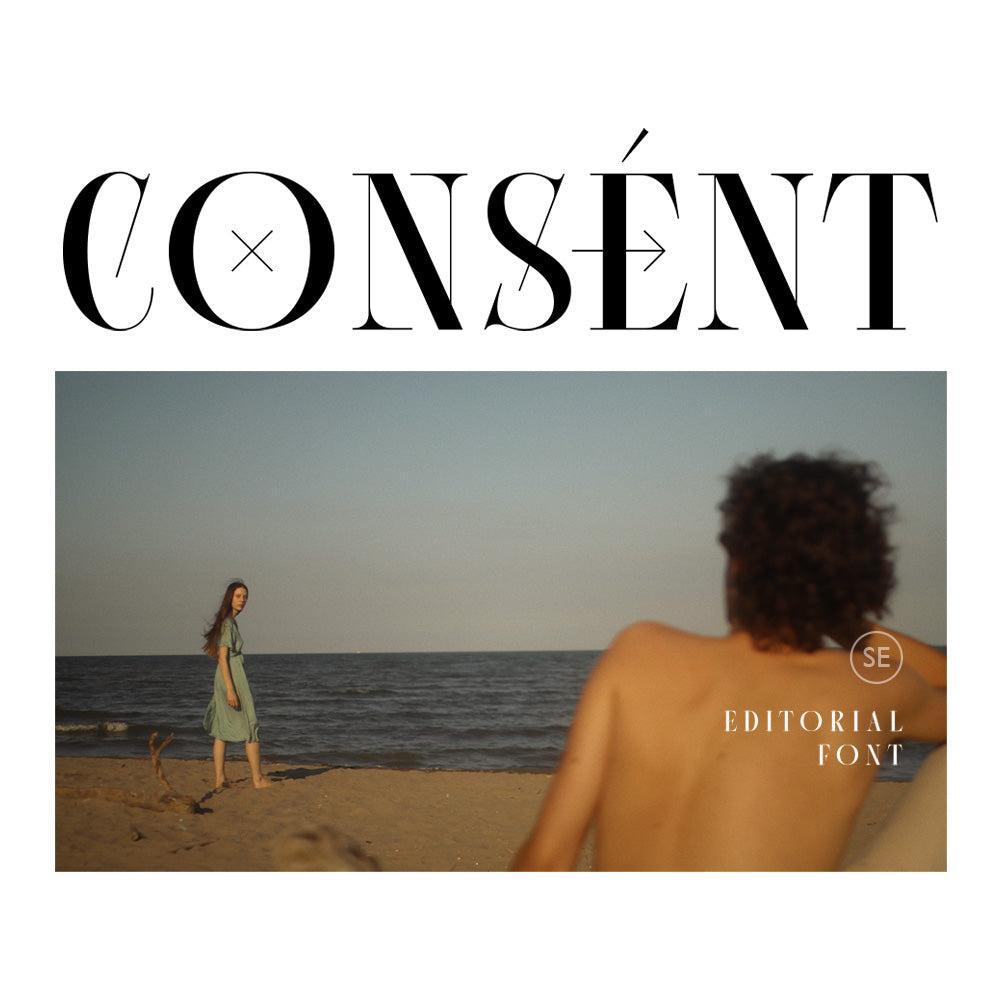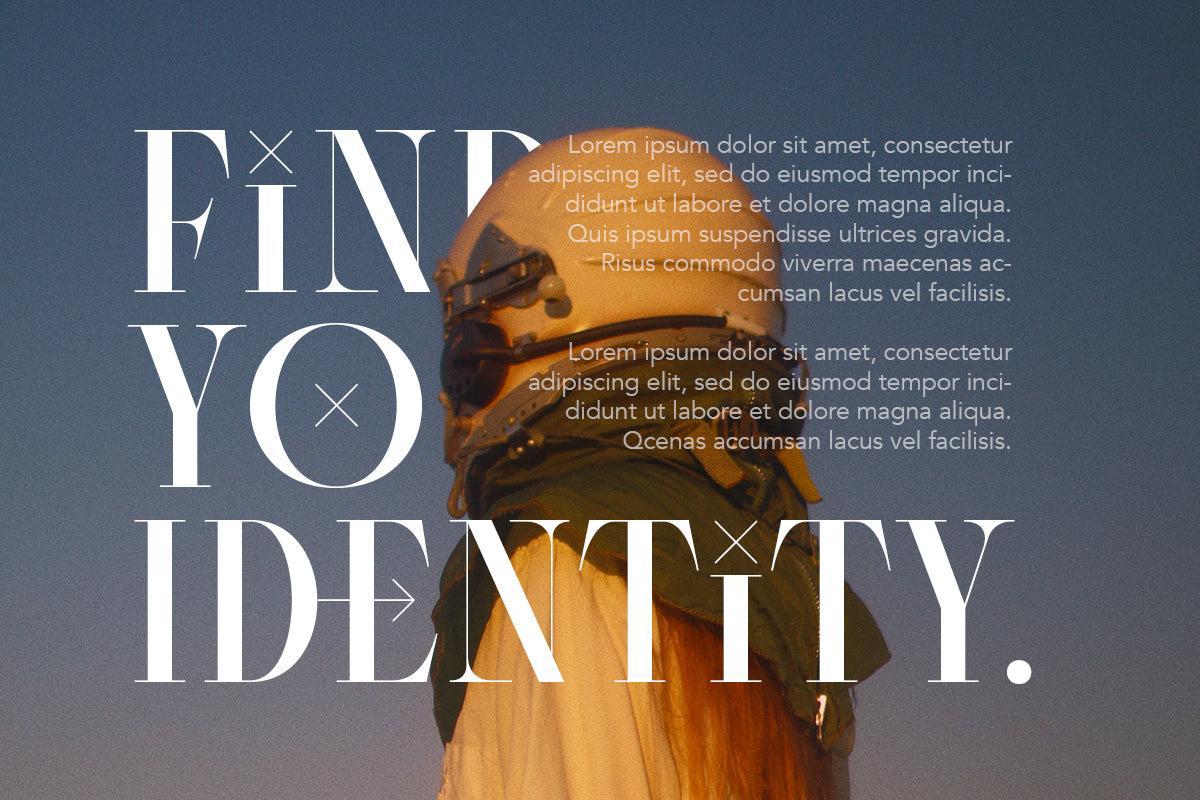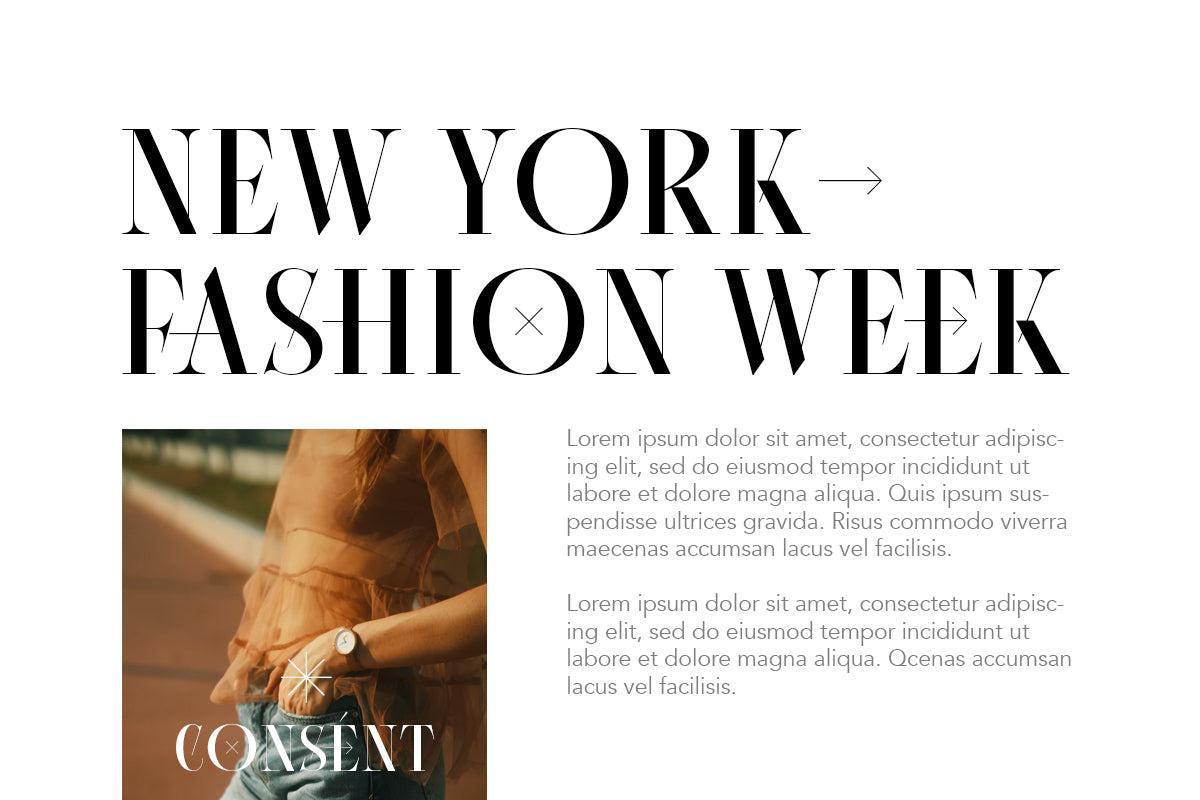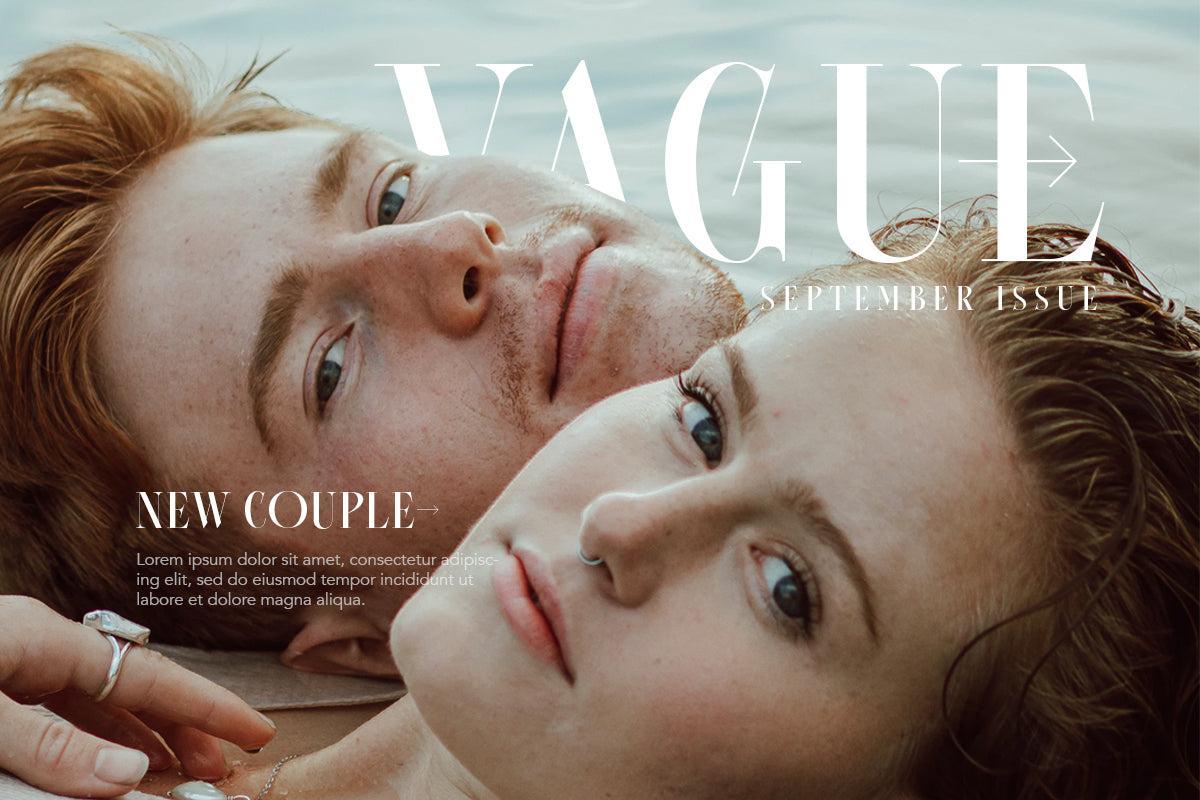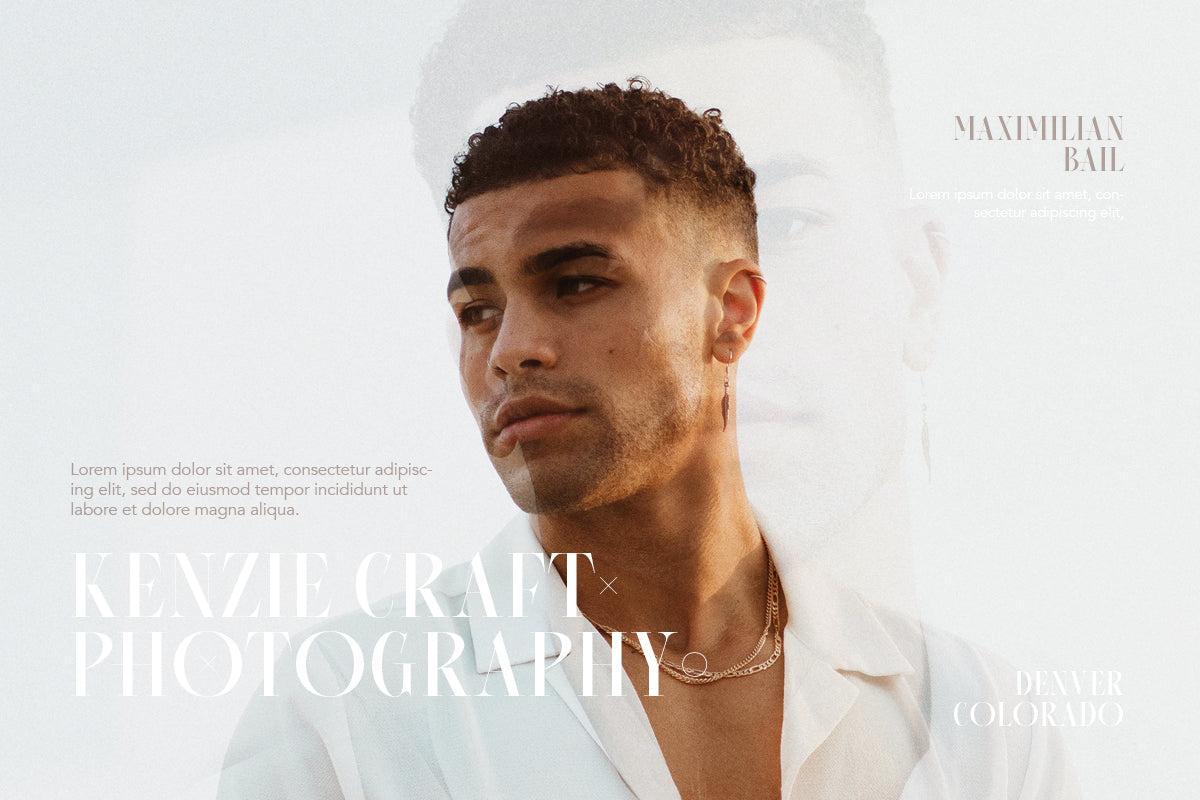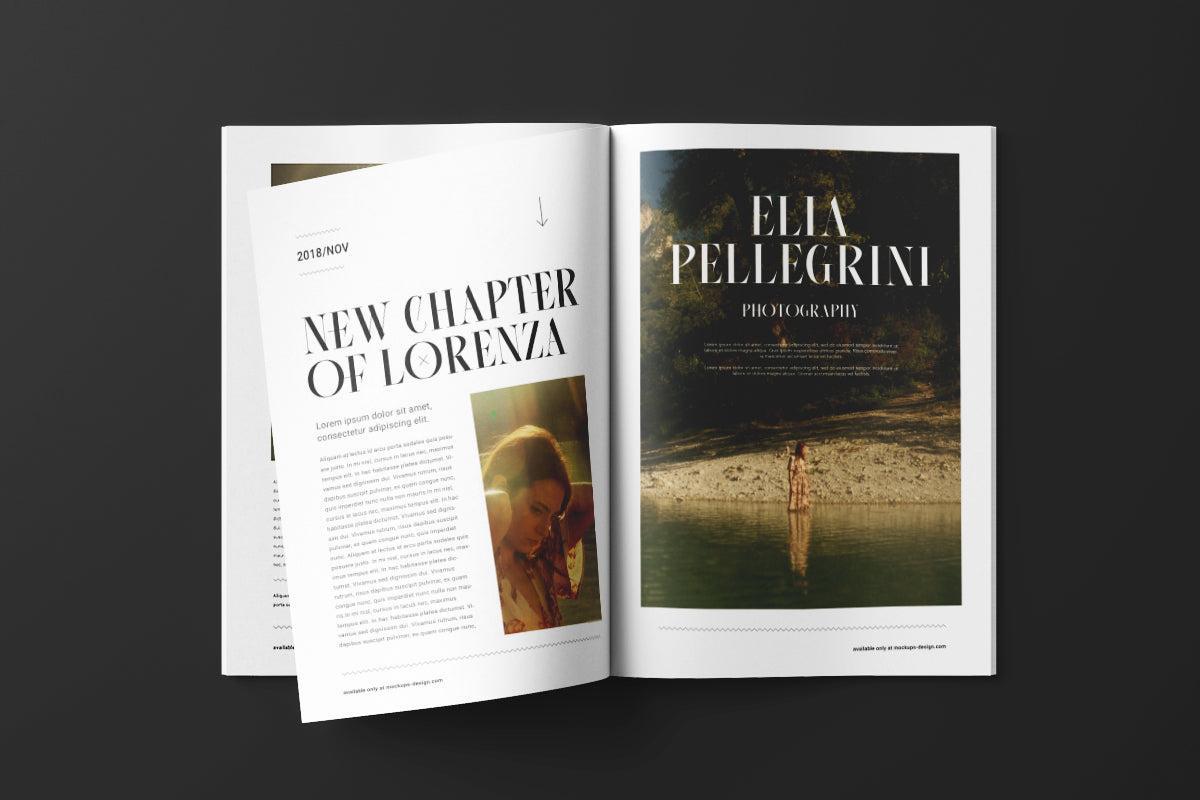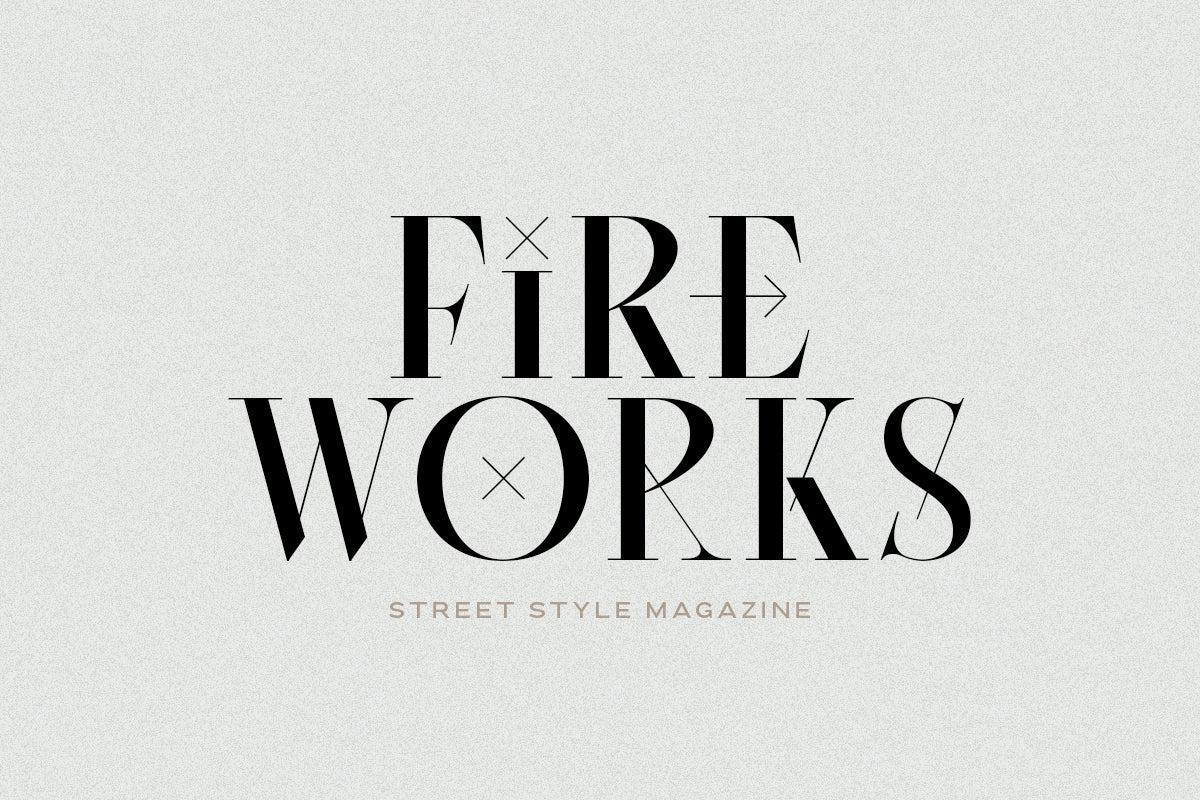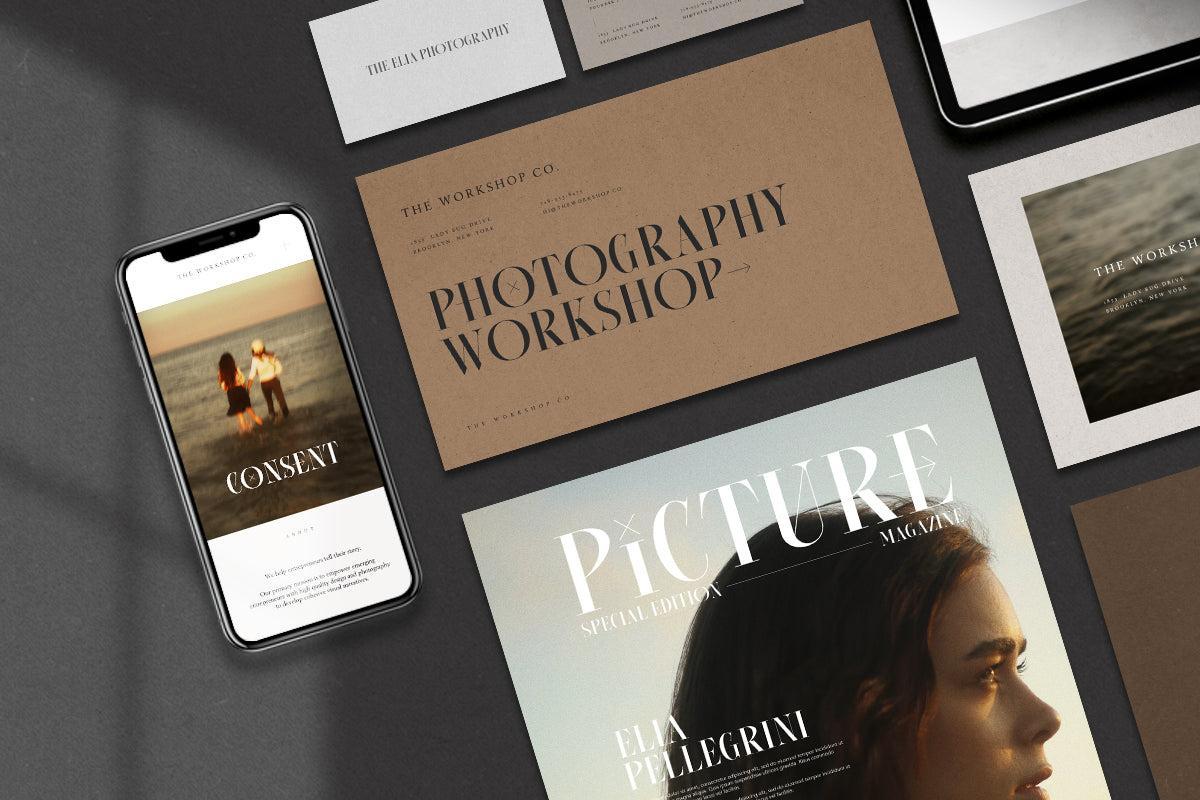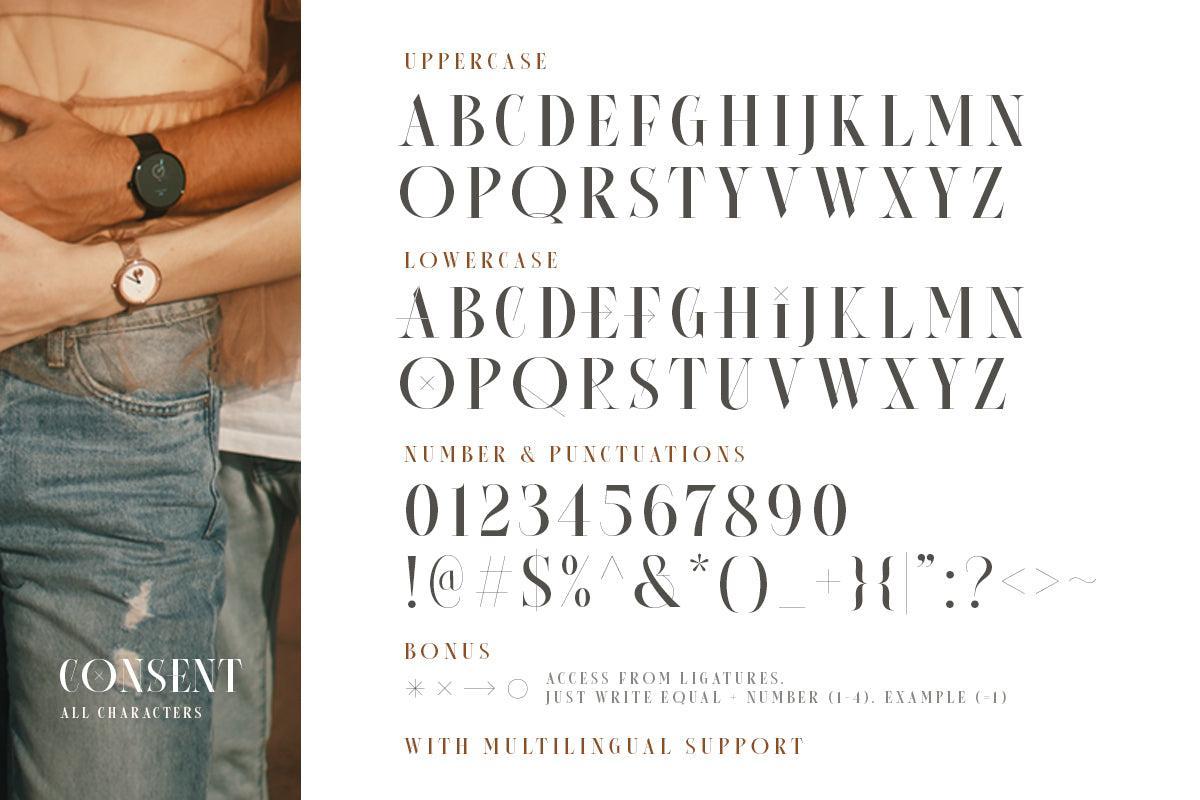
Consent - Editorial Serif Font
Consent is an editorial serif font featuring unique lowercase letters and special design elements, making it suitable for various projects. It offers ease of use with no complicated steps required for accessing its features, allowing for both lowercase and uppercase typing.